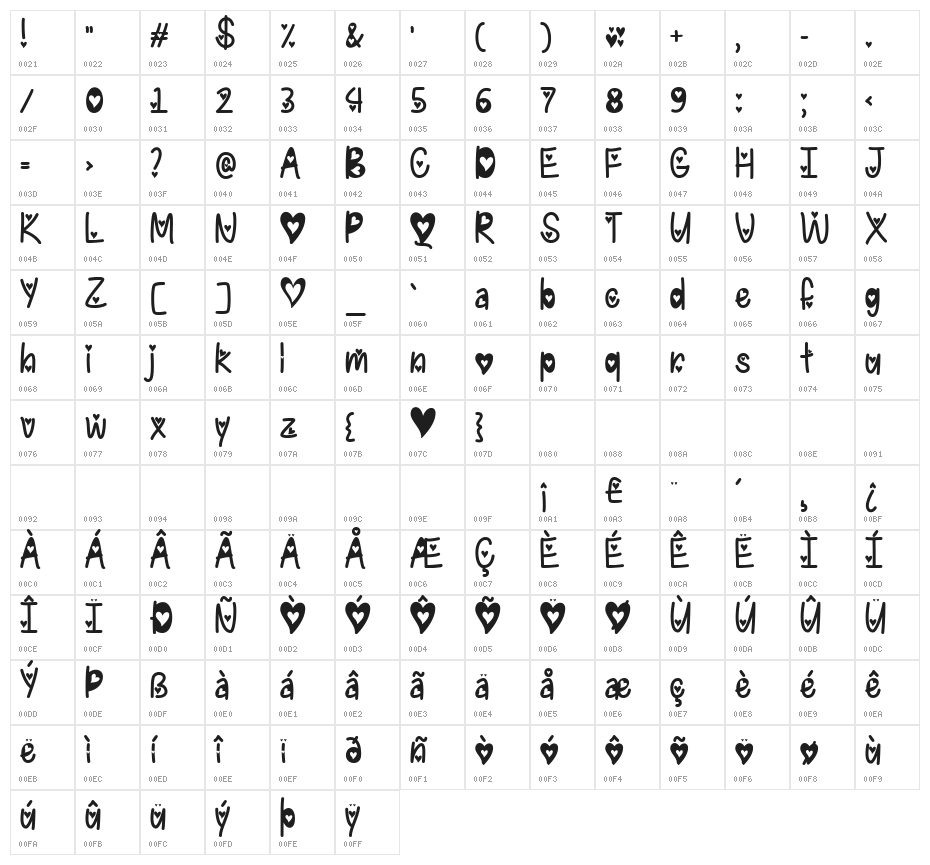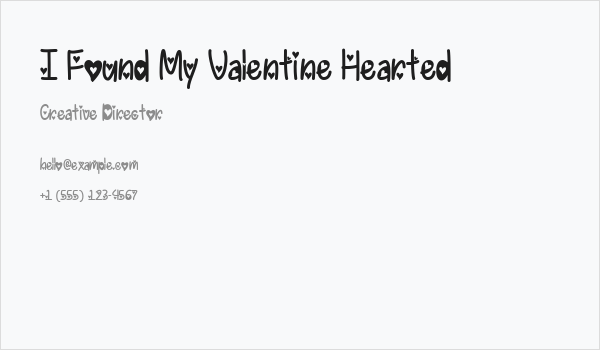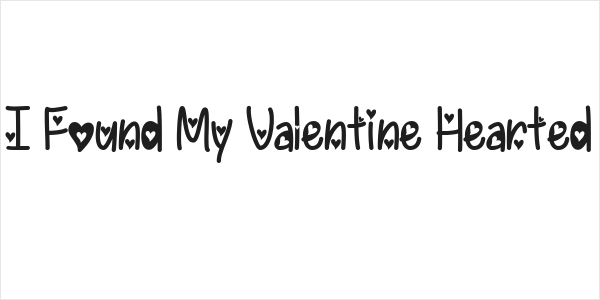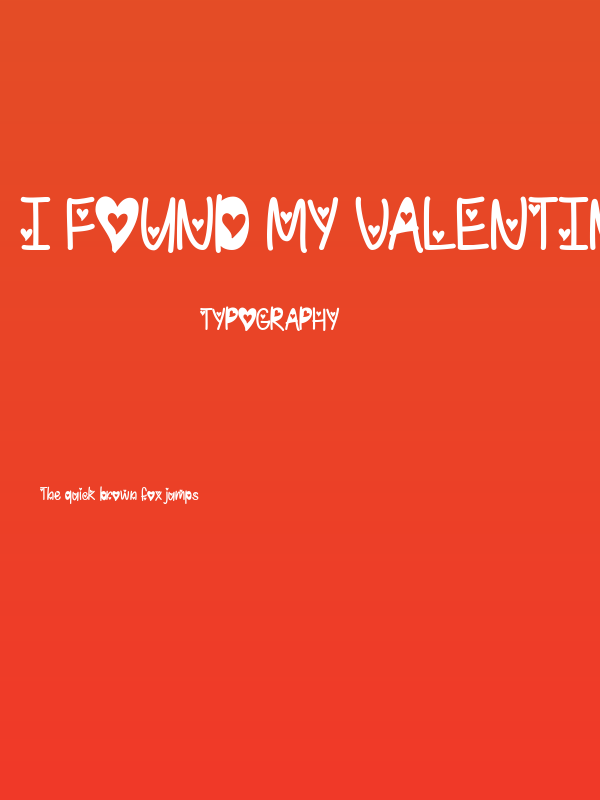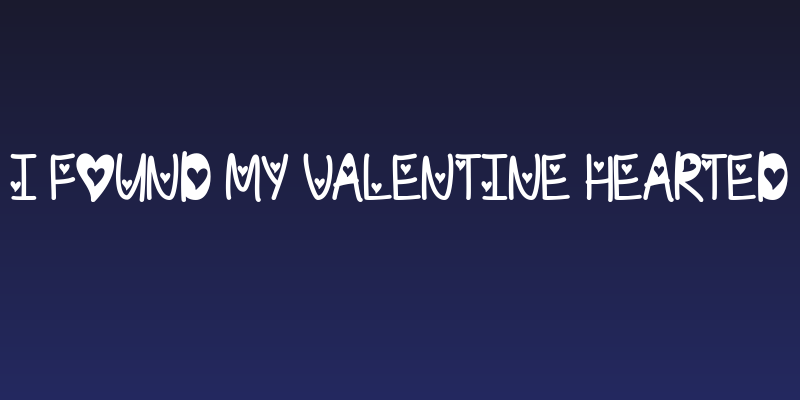
I Found My Valentine Hearted Font
I Found My Valentine Hearted Description
This playful and decorative font features heart shapes integrated into the design of each character, creating a whimsical and romantic feel. The uppercase and lowercase letters are bold and rounded, with hearts replacing certain elements like the counters and terminals. The numbers and special characters also incorporate heart motifs, maintaining a consistent theme throughout. This font exudes a sense of fun and affection, making it ideal for projects that require a touch of love and creativity.
| Proposed Projects | Ideal for Valentine's Day cards, wedding invitations, love-themed posters, and playful branding materials. |